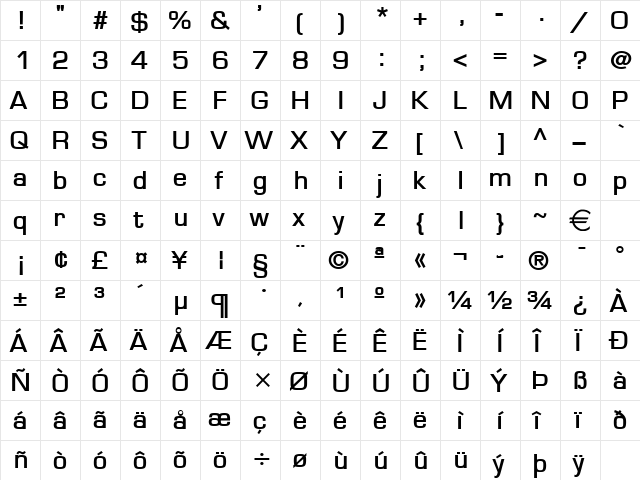
EurasiaWide Bold
Design Context for EurasiaWide Typeface
EurasiaWide offers clean, dependable letterforms without strong stylistic allegiance, making it a practical choice for designers who need flexibility. The heavy weight commands attention and anchors typographic hierarchies.